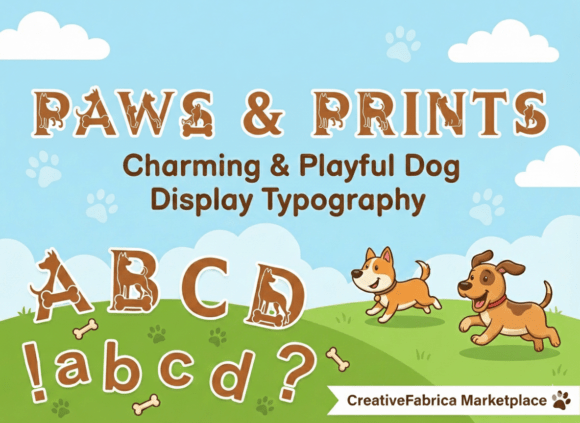
Introduction to Paws & Prints Font
Paws & Prints is a charming and playful display font made especially for dog lovers.
Every uppercase letter is creatively designed with an adorable dog silhouette standing on a dog bone, giving your text a fun, highly unique look This font is absolutely perfect for pet shop branding, veterinary clinic materials, animal rescue merchandise, childrenโs books, cute greeting cards, and any project that needs a touch of puppy love.
Key Features of Paws & Prints Font
Why Choose Paws & Prints Font?
Paws & Prints Font offers exceptional quality and versatility, making it a valuable addition to your design toolkit. Whether you’re creating for personal projects or commercial use, Paws & Prints Font delivers professional results.